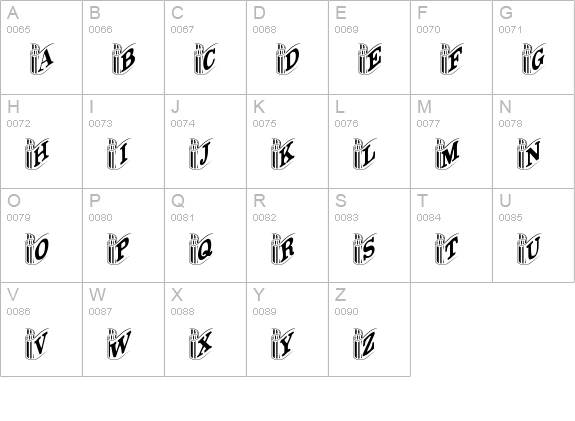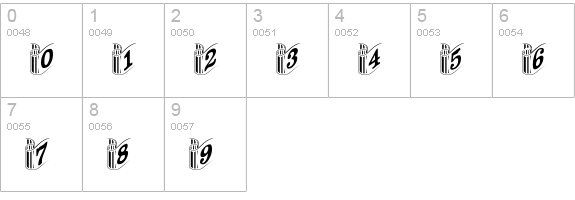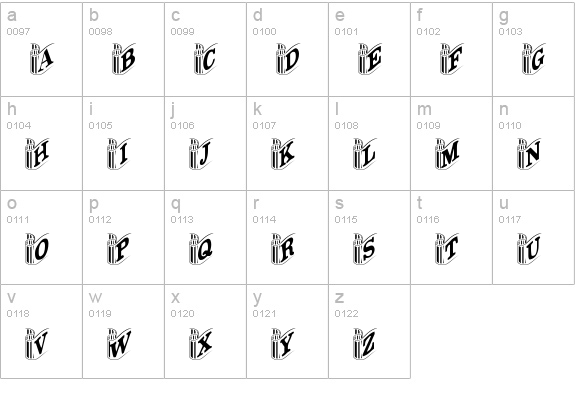
Ribbons Font Details
Ribbons font is a stunning and elegant typeface that will add a touch of sophistication and grace to any design project. With its delicate curves and graceful strokes, Ribbons font exudes a sense of timeless beauty that is sure to captivate your audience. This font is perfect for creating stunning logos, stylish invitations, beautiful headings, and eye-catching posters. Its versatility allows it to be used for both formal and informal designs, making it a must-have for any creative endeavor. One of the best things about Ribbons font is that it is freely available to download at FontsMarket.com. This means that you can easily access this exquisite font without having to spend a single penny. Whether you are a professional designer or a hobbyist, Ribbons font provides you with the opportunity to elevate your designs without breaking the bank. So why wait? Download Ribbons font today and unlock a world of unlimited creativity. Let Ribbons font be your secret weapon to creating stunning and memorable designs that will leave a lasting impression.